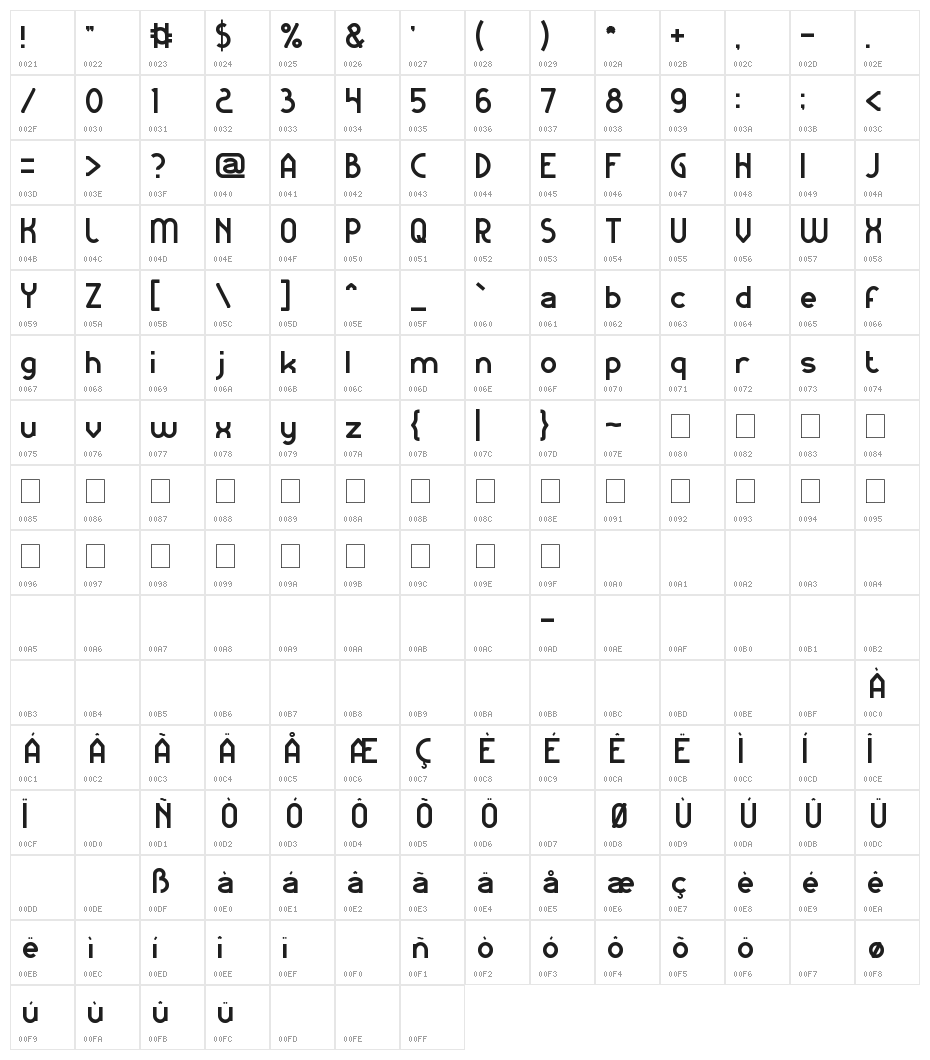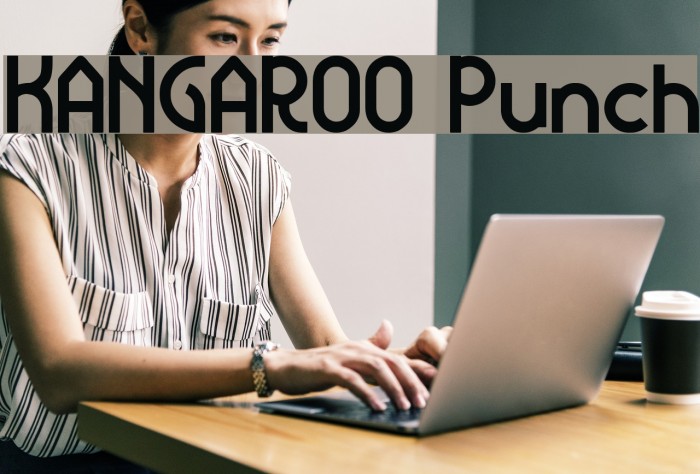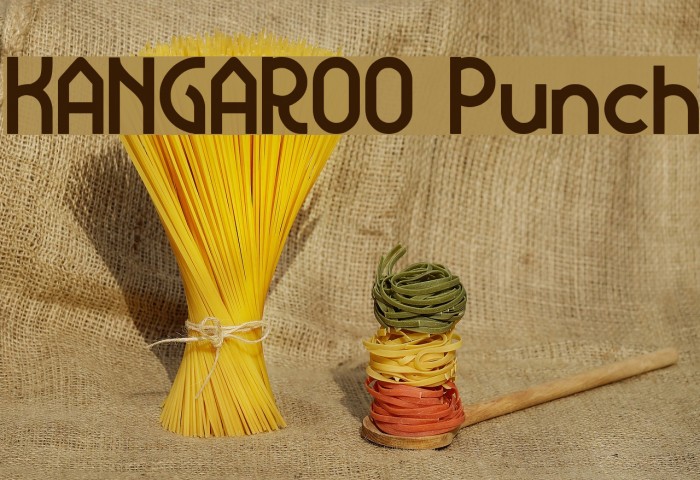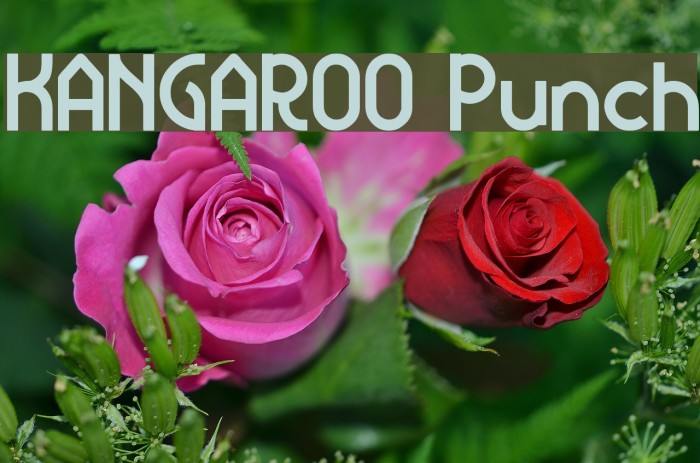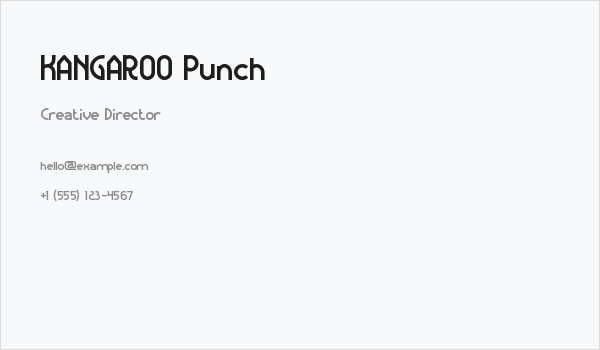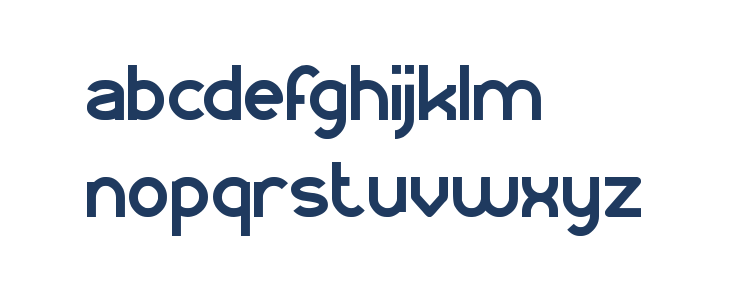
KANGAROO Punch Font
KANGAROO Punch Description
This font features a bold and playful design with rounded edges and a geometric structure. The uppercase letters are uniform in height, while the lowercase letters maintain a consistent baseline, creating a harmonious appearance. The numerals are distinct and easily readable, complementing the overall style. Special characters are designed with the same playful aesthetic, making them suitable for creative and informal projects. The font's unique style is both modern and approachable, making it versatile for various design needs.
| Proposed Projects | Ideal for children's books, playful branding, posters, and creative digital content. |